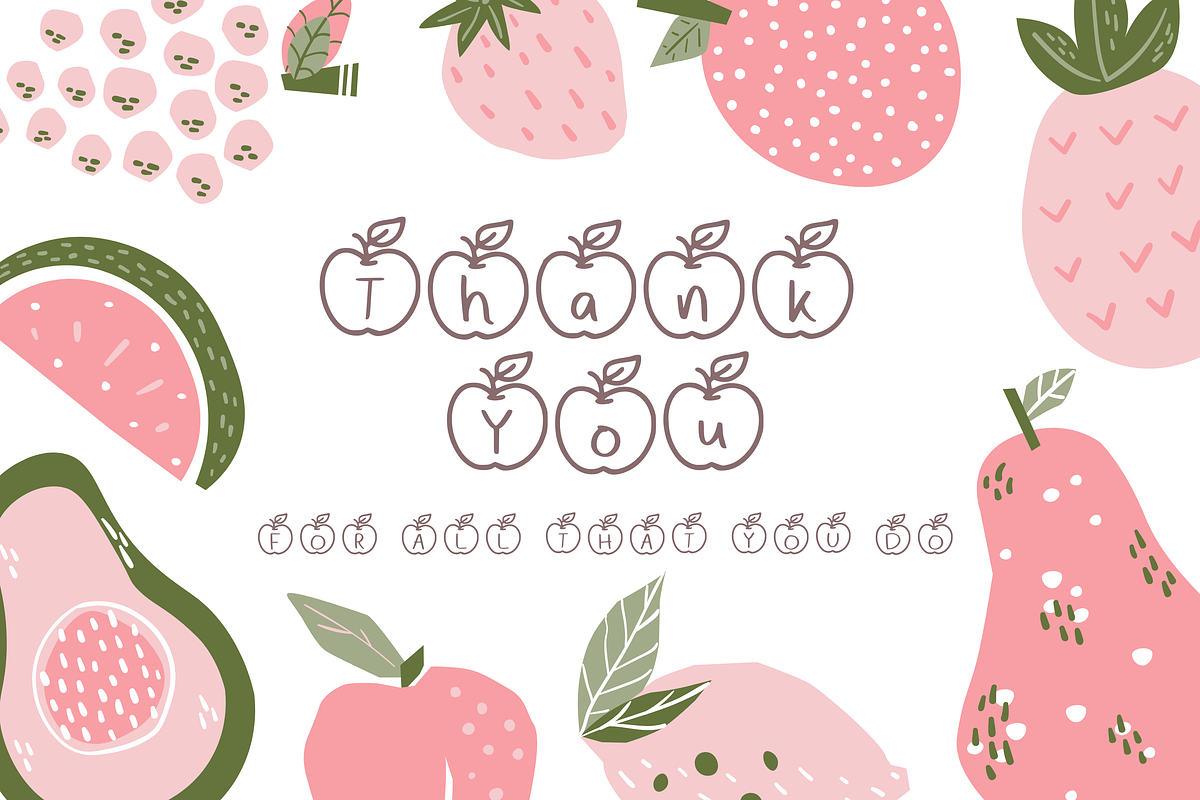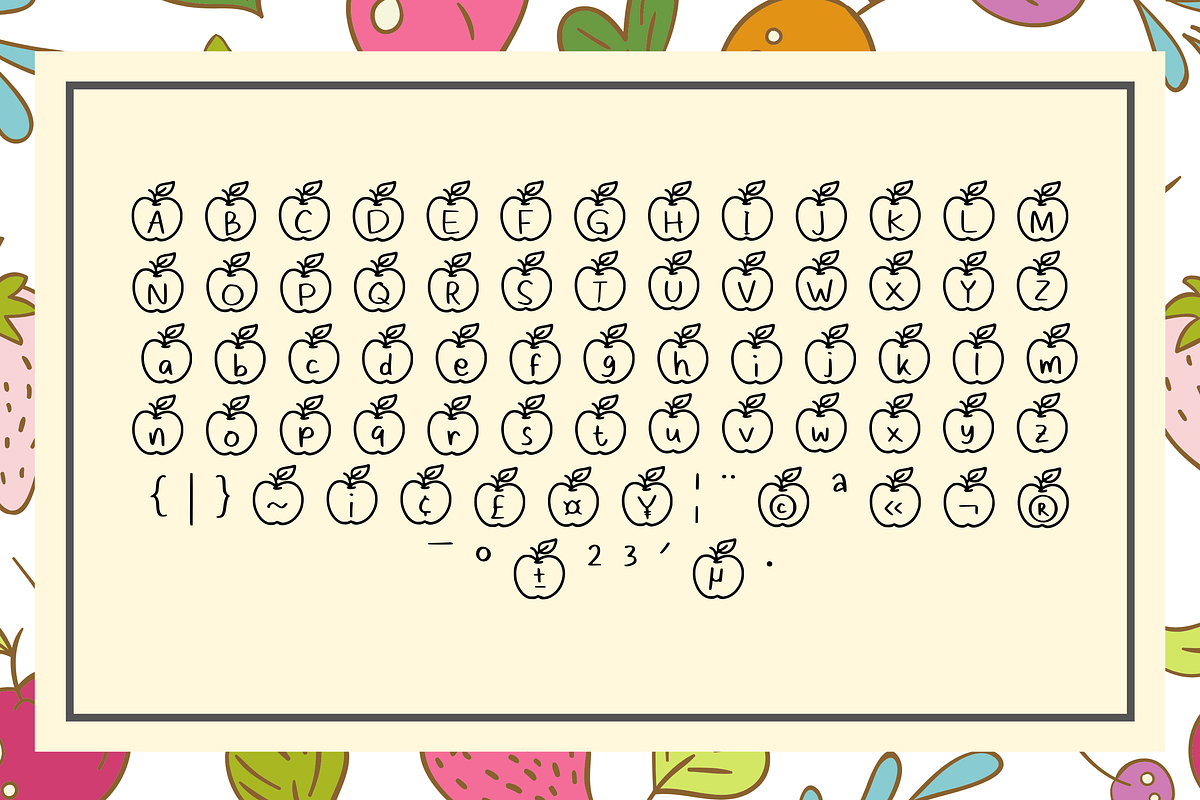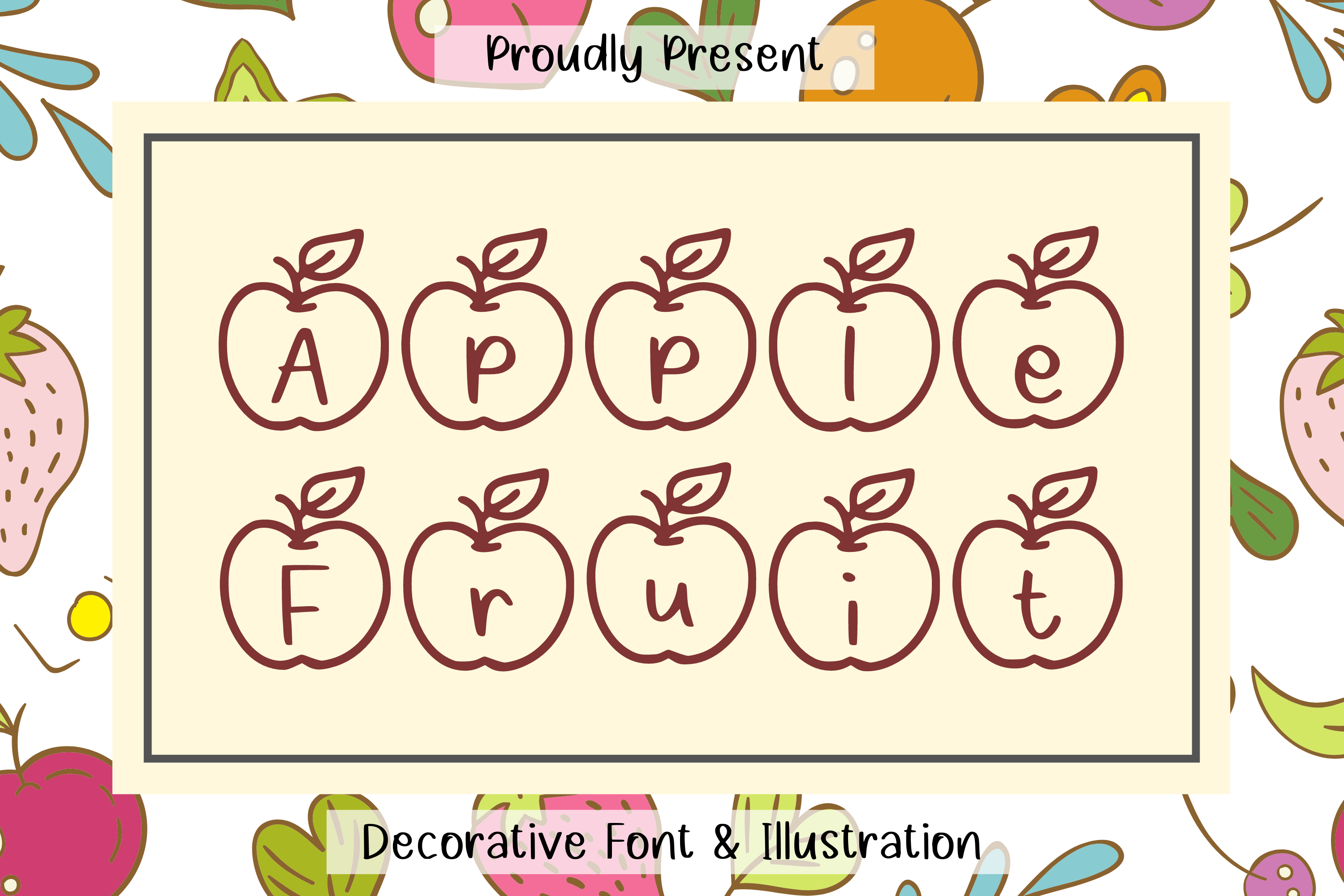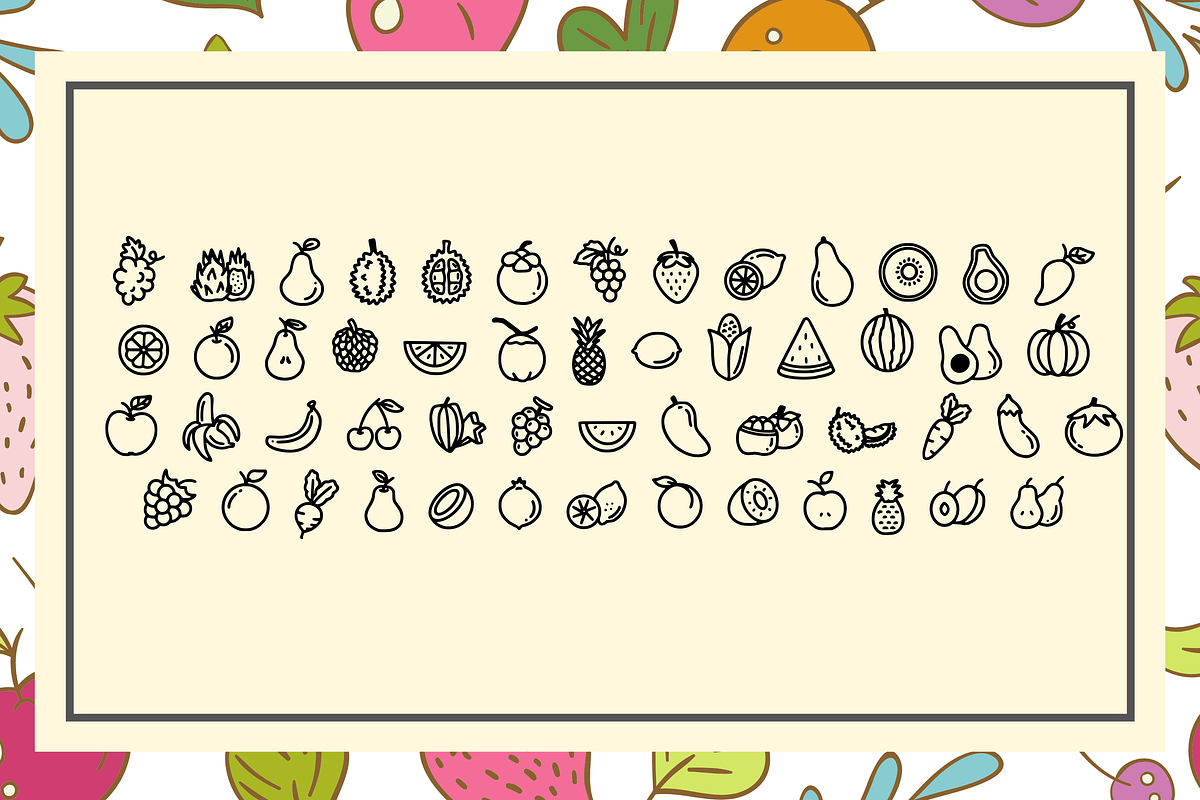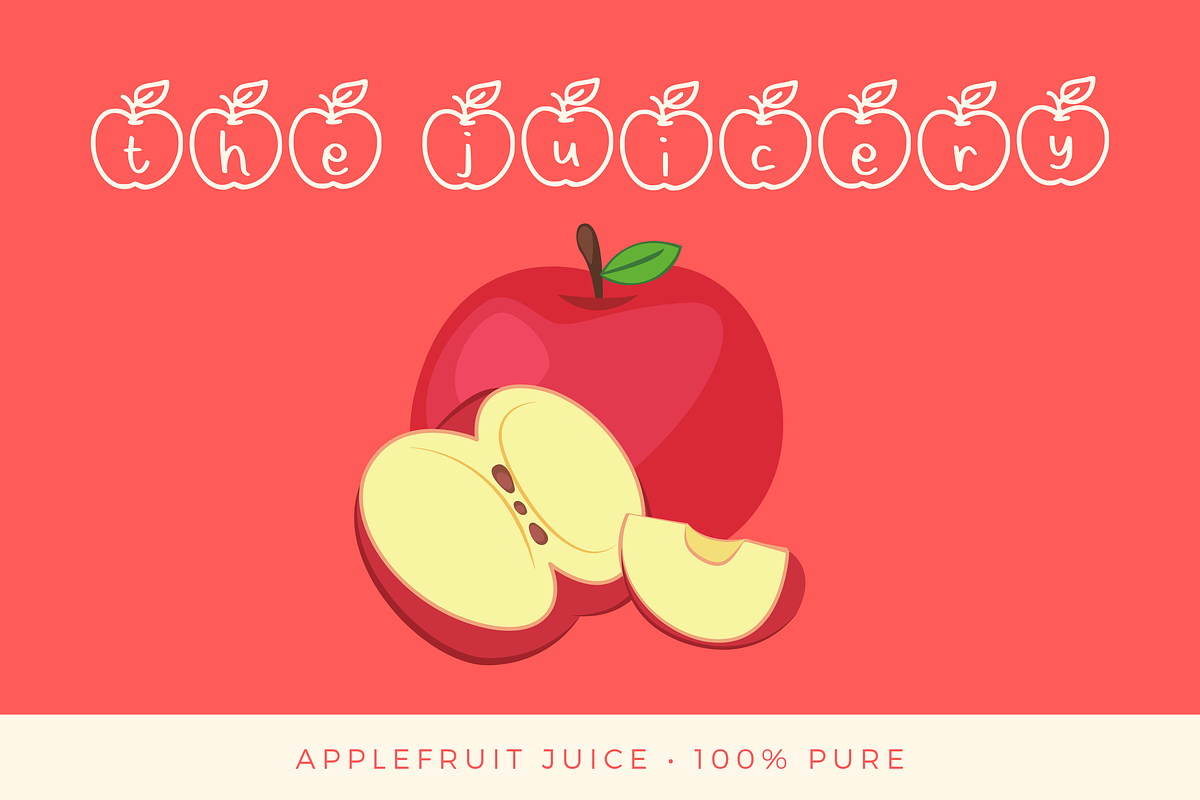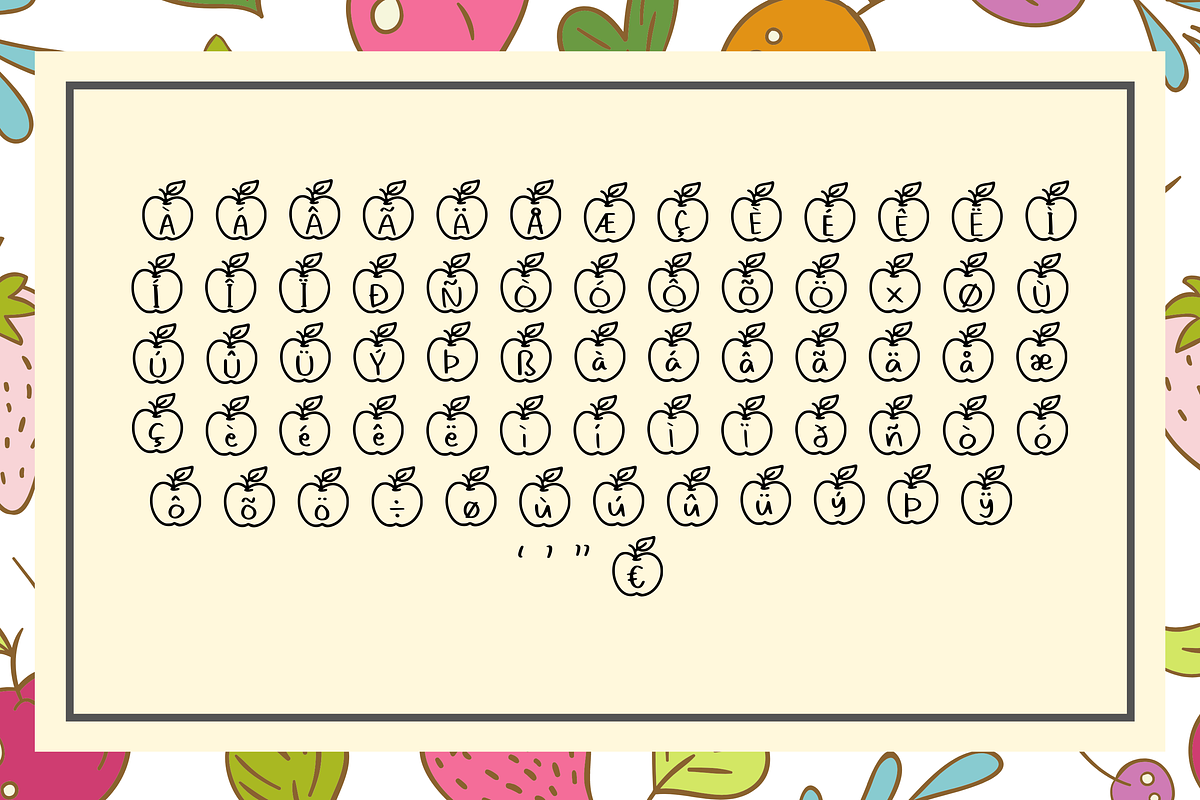
Apple Fruit Font Duo
Apple Fruit is an adorable and stylish duo font (decorative and dingbats). It will add an incredibly joyful touch to any of your beautiful projects, and it fits a wide range of crafty ideas, from letterheads and titles to stationery and labels.